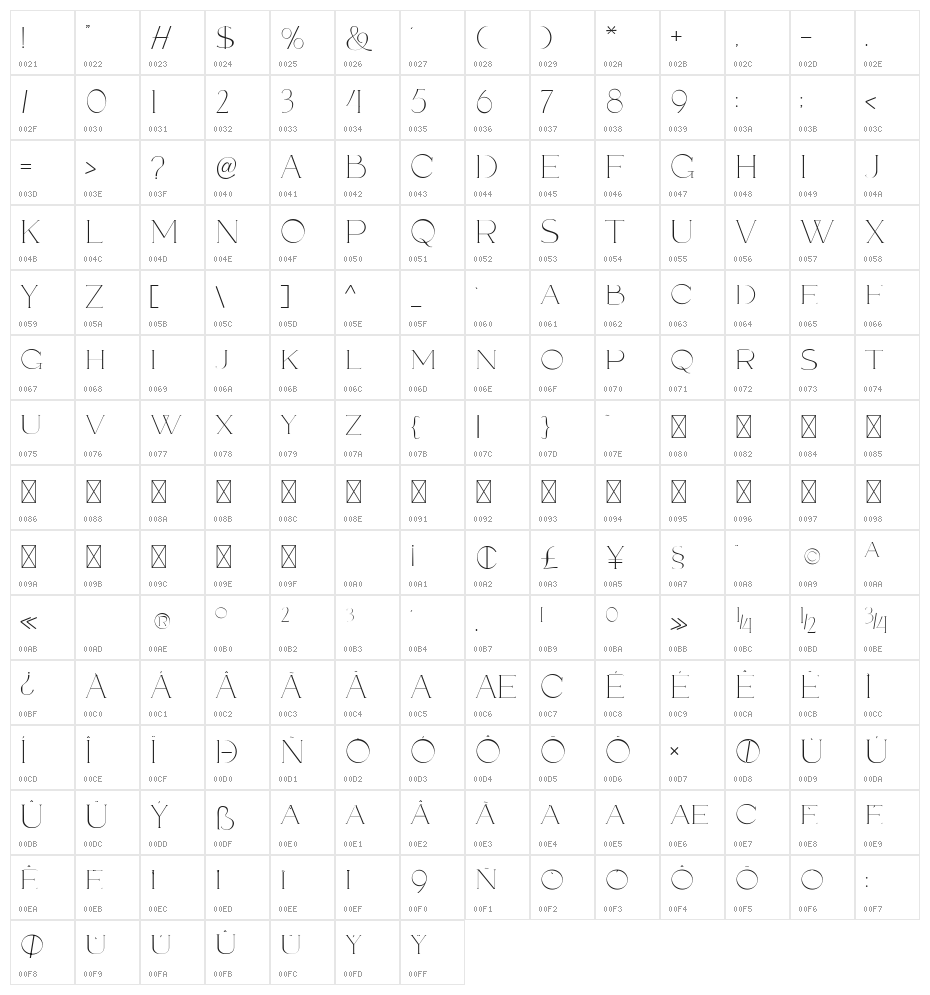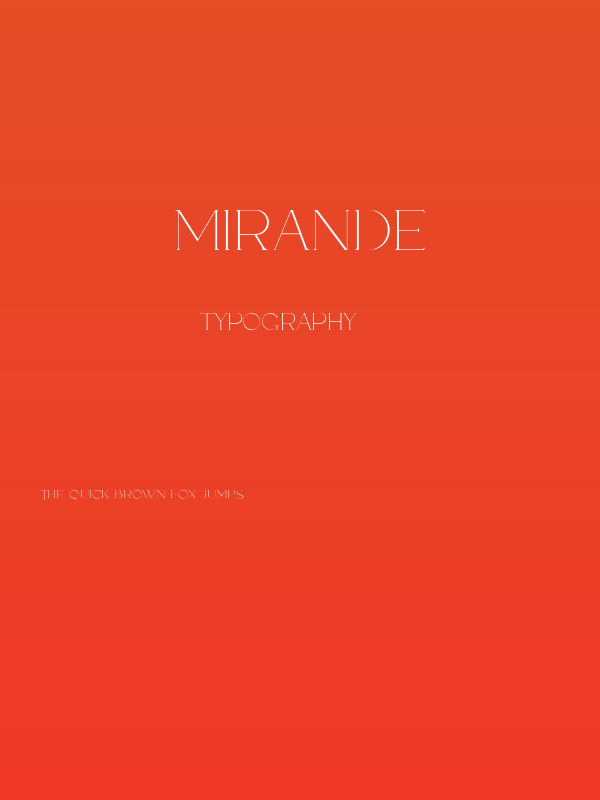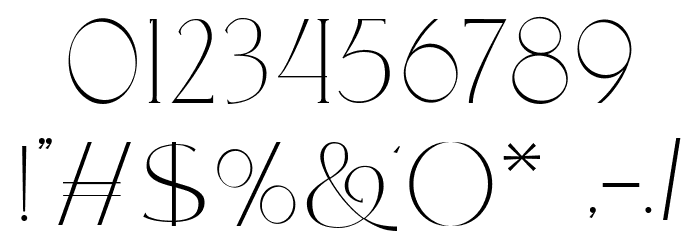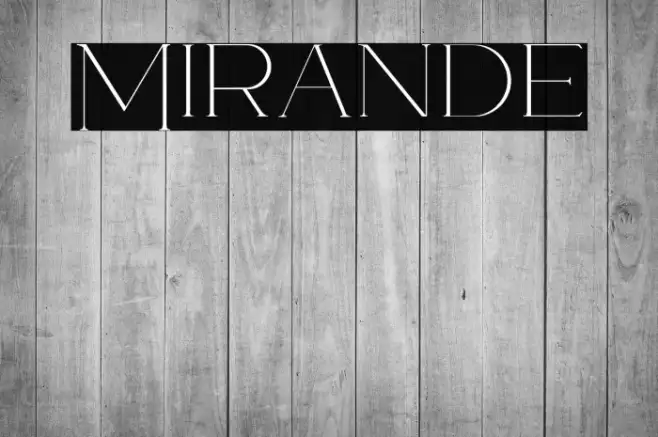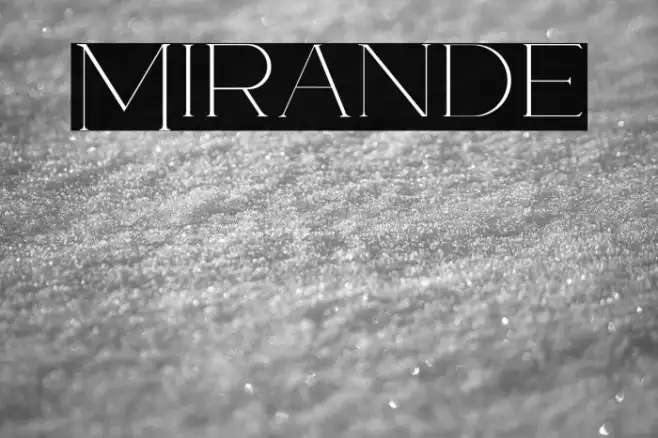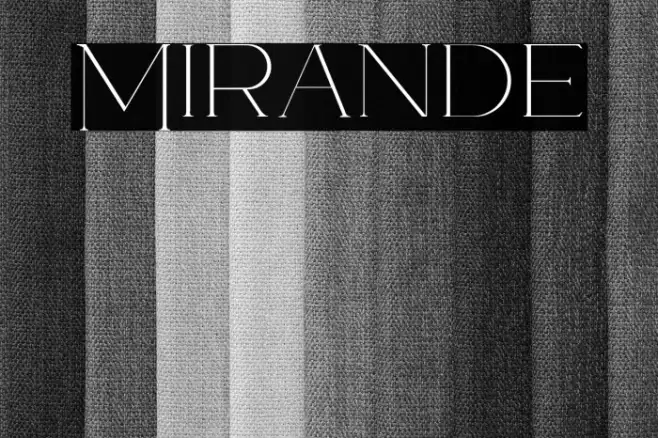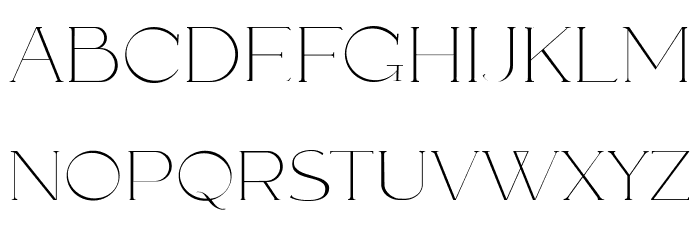
Mirande Font
Mirande Description
This font features a modern and elegant design with a high contrast between thick and thin strokes. The characters are sleek and sophisticated, with a refined and stylish appearance. The uppercase letters are particularly striking, with a tall and narrow form that exudes a sense of luxury and class. The lowercase letters maintain the same elegance, offering a harmonious balance between the two cases. The numerals are equally refined, with a consistent style that complements the alphabetic characters. The special characters are designed with the same attention to detail, ensuring a cohesive look across all elements.
| Overall Style | Modern, Elegant |
| Proposed Projects | Ideal for luxury branding, high-end fashion magazines, elegant invitations, and sophisticated logo designs. |